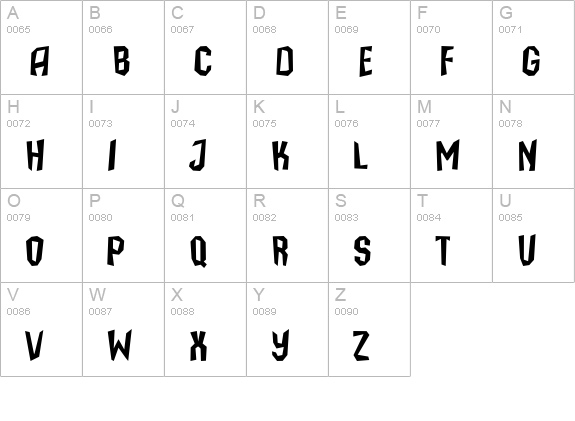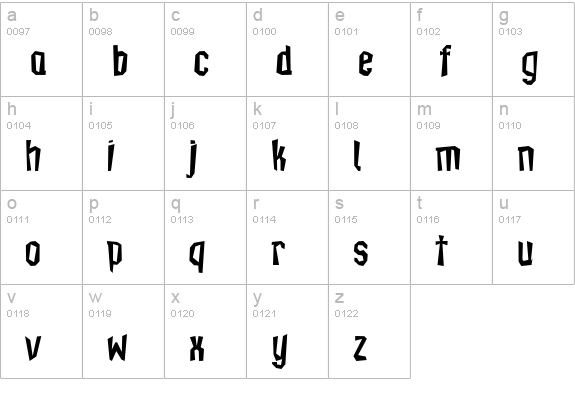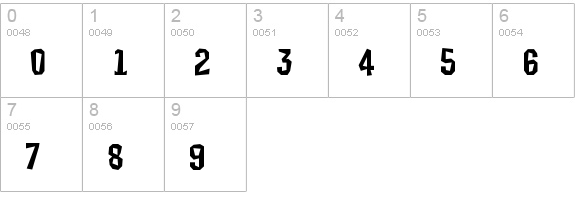
IsleOfTheDead Font Details
IsleOfTheDead font is a stunning typeface that exudes an air of mystery and intrigue. Its unique design captures the essence of an ancient island shrouded in secrets and legends. This font is perfect for projects that require a touch of darkness and a hint of adventure. With its bold and captivating letterforms, IsleOfTheDead font is sure to make a lasting impression. Its intricate details and fine craftsmanship make it a standout choice for logos, headlines, and display purposes. Whether used in print or digital media, this font will bring an element of sophistication and elegance to any design. What sets IsleOfTheDead font apart is not only its striking aesthetics but also its accessibility. It is freely available to download at FontsMarket.com, making it an excellent choice for designers on a budget. By offering this font for free, it allows creative individuals of all backgrounds to add a touch of mystery and intrigue to their projects without breaking the bank. The versatility of IsleOfTheDead font is another reason why it stands out from the crowd. It can be used in a variety of design contexts, from book covers and movie posters to websites and social media graphics. Its timeless appeal ensures that it will remain relevant and impactful for years to come. Embrace the enchantment of IsleOfTheDead font and let it transport your designs to a world of hidden treasures and forgotten tales. With its free availability at FontsMarket.com, there is no reason not to explore the possibilities this captivating font has to offer. Unleash your creativity and let IsleOfTheDead font elevate your designs to new heights.